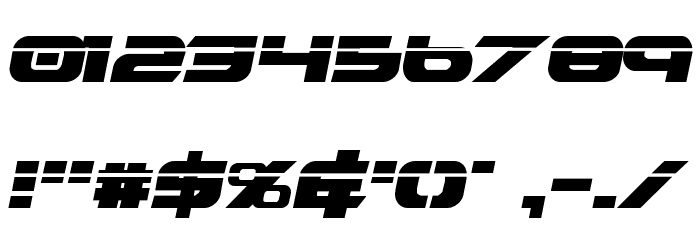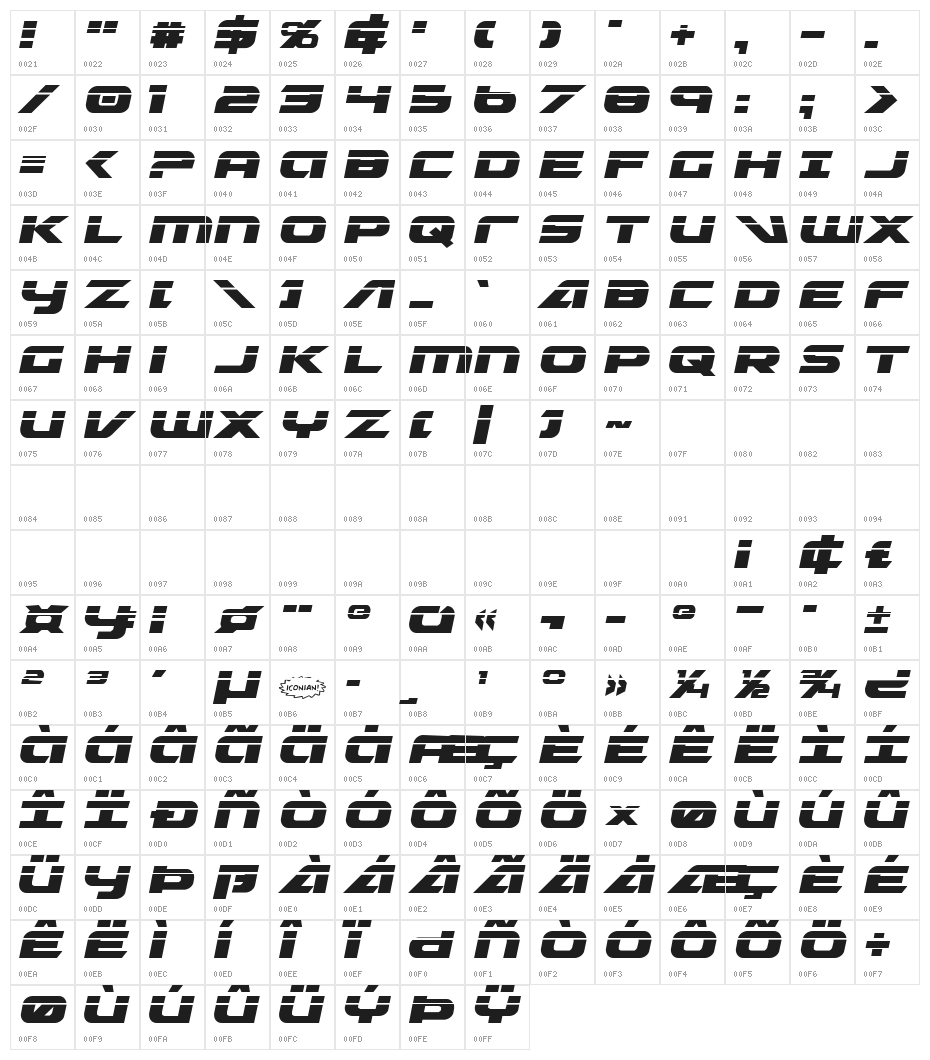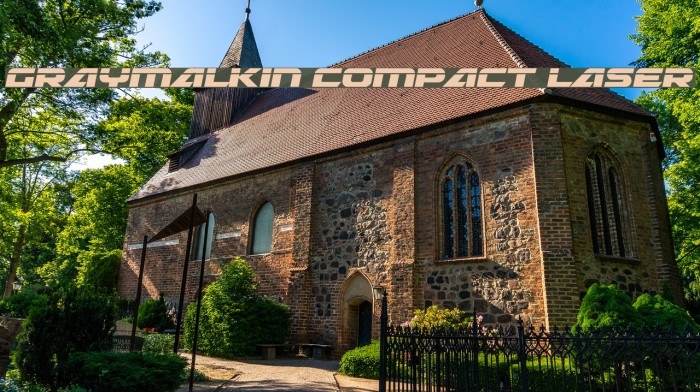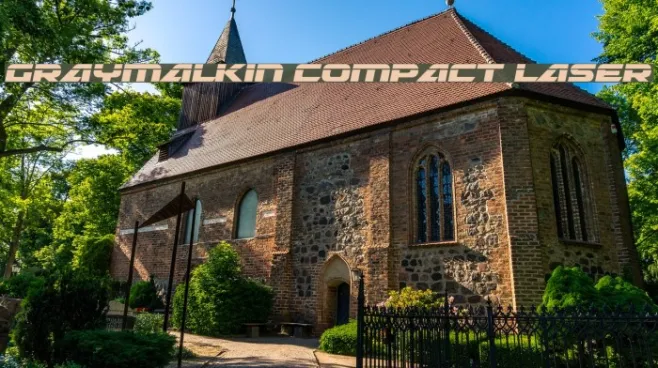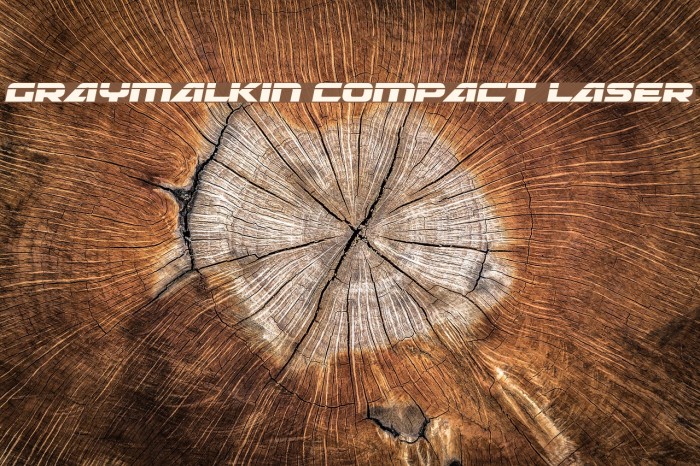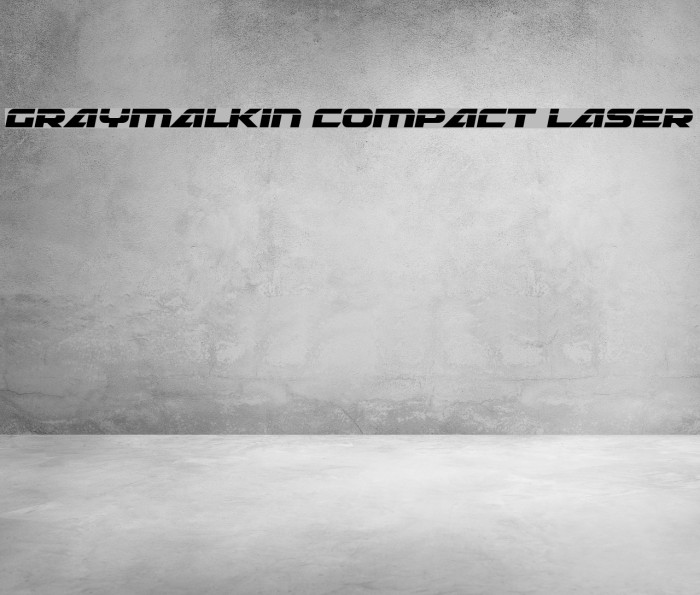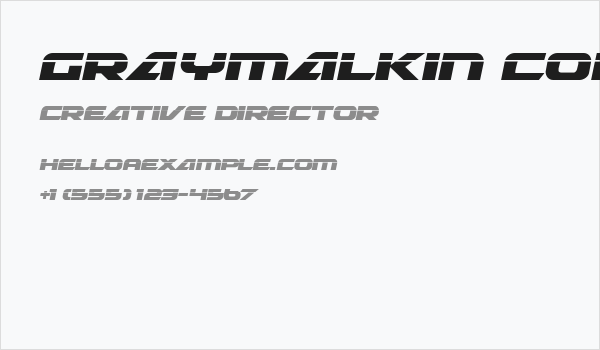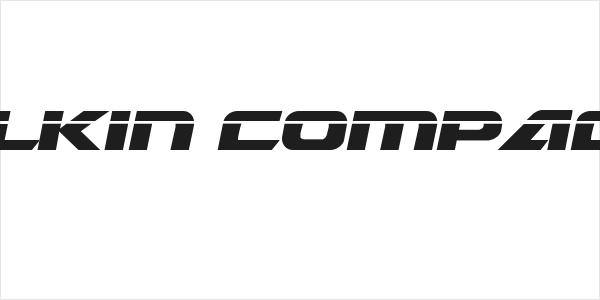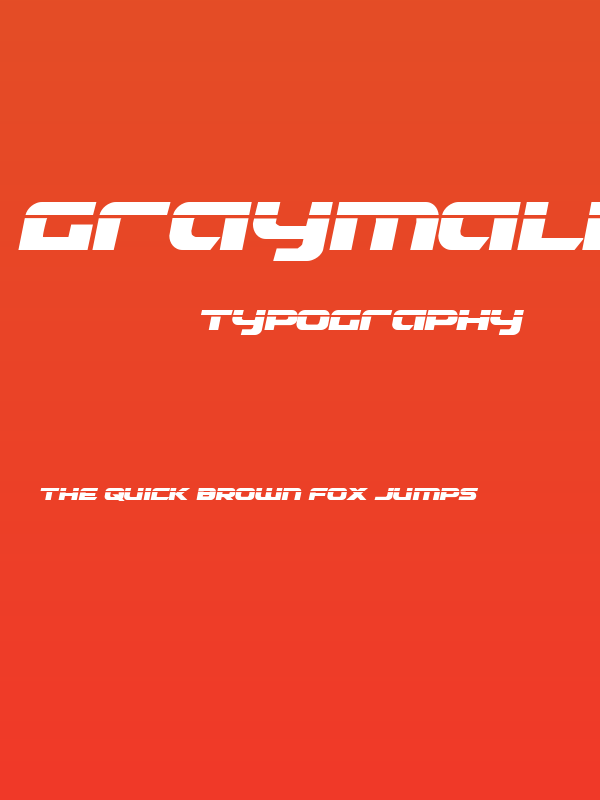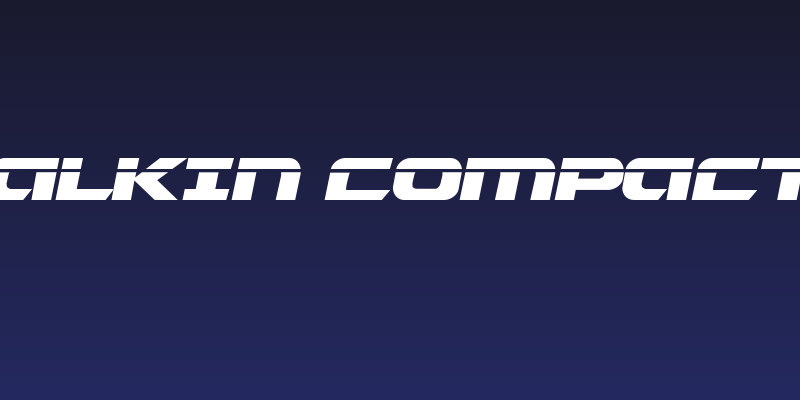
Graymalkin Compact Laser Font
Graymalkin Compact Laser Description
This font features a futuristic and angular design, characterized by sharp edges and a sleek, compact appearance. The letters are bold and slightly condensed, giving a sense of speed and modernity. The uppercase and lowercase letters maintain a consistent style, with a strong geometric influence. Numbers and special characters follow the same design principles, ensuring uniformity across all glyphs. The font's unique style makes it stand out, ideal for projects that require a modern and dynamic look.
GRAYMALKIN-COMPACT-LASER UPPERCASE
GRAYMALKIN-COMPACT-LASER LOWERCASE
GRAYMALKIN-COMPACT-LASER OTHER CHARS
| Proposed Projects | Ideal for sci-fi themed projects, technology branding, video game titles, and modern advertising campaigns. |